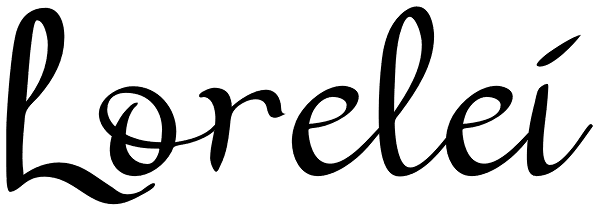
Lorelei
Lorelei is an exuberant and bouncy script. The ink seems to be slathered onto the surface in a casual and spontaneous manner, making for a flowing and feminine script that is perfect for invitations or greeting cards. The script also contains a...